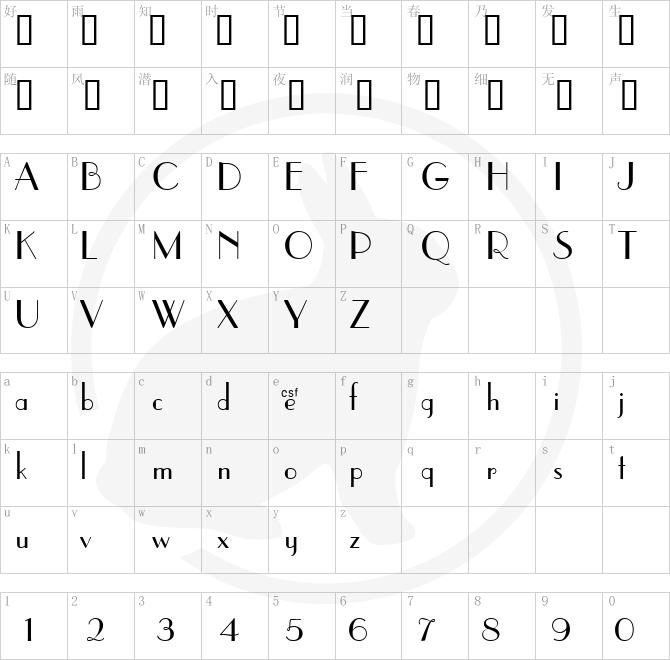
- Font Name:Hafnium
Hafnium.ttf is a very beautiful artistic font, Hafnium.ttf is widely used in the design and printing of various books and pictures,Hafnium.ttf has a strong visual impact,Hafnium.ttf is a commonly used font in newspapers, magazines and books, and is used in posters, e-commerce Poster design, store design, logo design, font design and other fields.Hafnium.